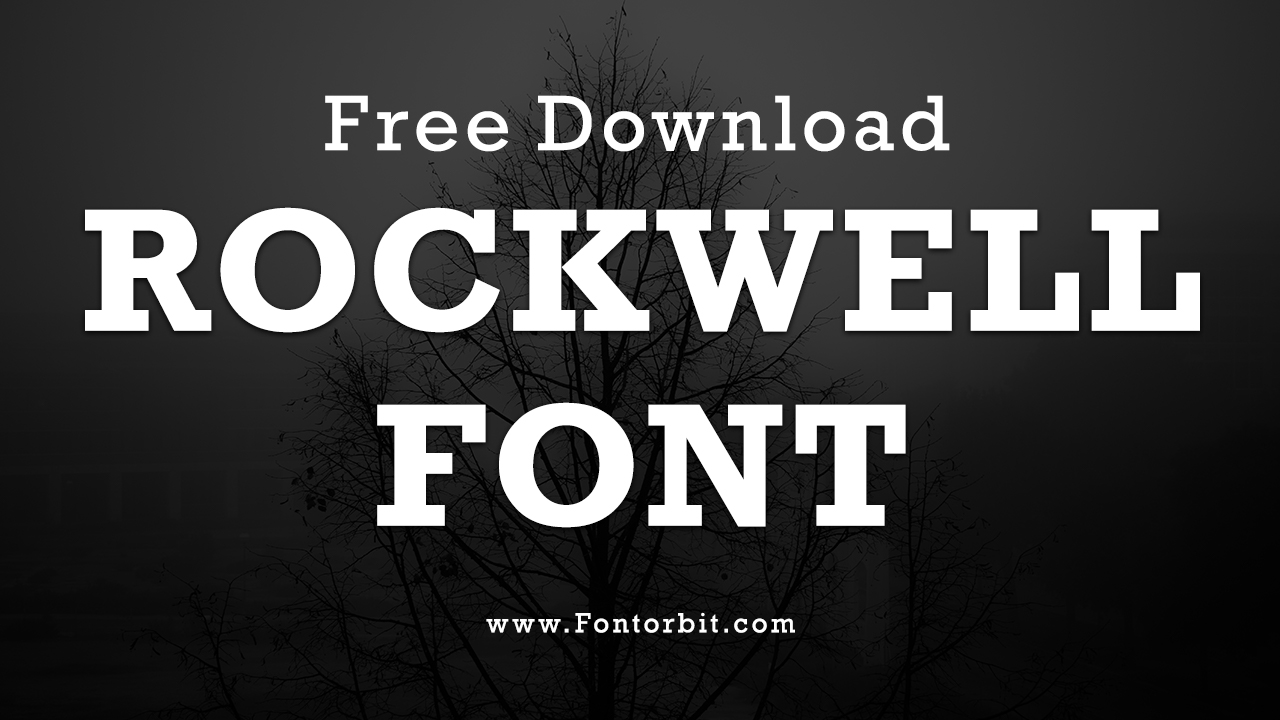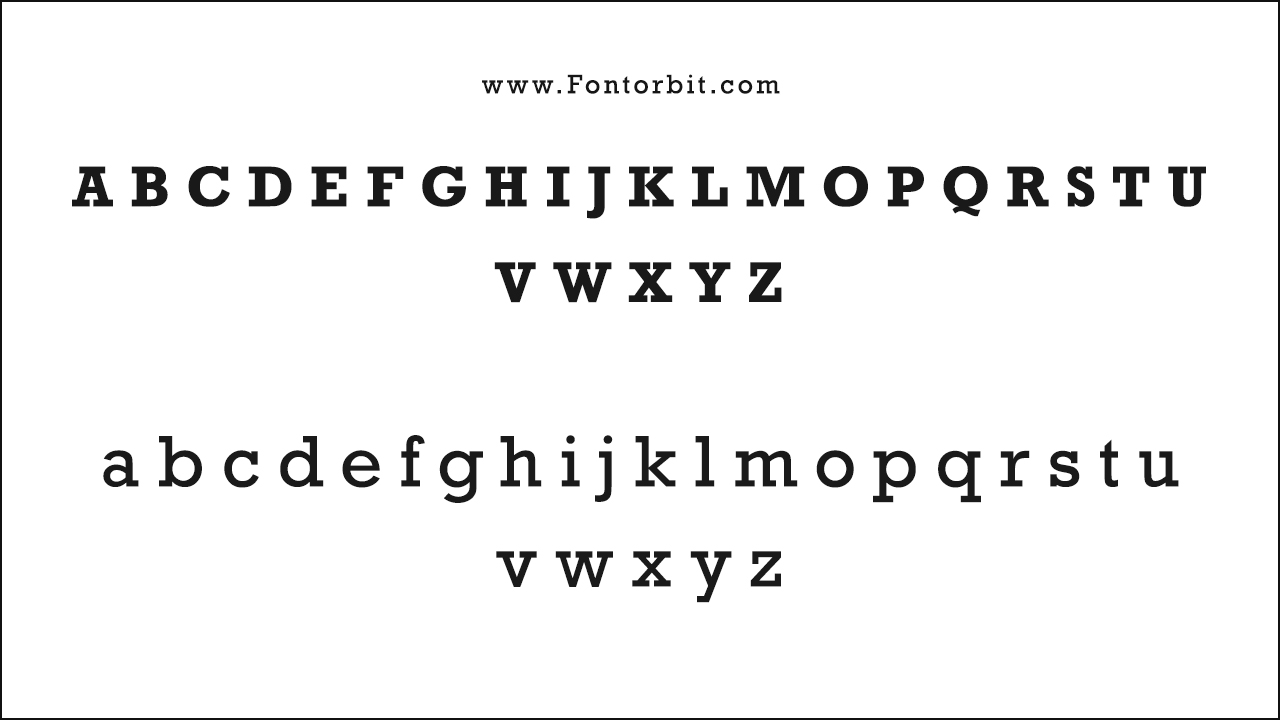
Rockwell font is a renowned slab-serif font designed by Frank Hinman Pierpont and released by the Monotype Corporation in 1934. The font family includes a variety of styles and weights, making it versatile for both print and digital applications.
The font’s geometric slab serifs and monoline structure make it a standout choice for headlines, branding, and display uses. The Rockwell family is available for free download for personal use and is also accessible through Google Fonts in TTF format.
Rockwell’s design reflects the geometric slab-serif trend of the 1930s, inspired by earlier types like Memphis and Beton. Its clean, monoweight strokes cater to both modern and classic design needs. This font is ideal for:
- Branding and logos
- Headlines and display purposes
- Editorial design
- Printing and digital content
- Public transportation signage
- Video game graphics and animated logos
Rockwell Font Found In Use
Rockwell has been utilized by:
- Guinness World Records
- Expo 86 informational signage
- Docklands Light Railway
- Arby’s advertising
Rockwell stands out with its bold slab-serifs and geometric precision, making it a powerful choice for various design applications. Its robust appearance and legibility make it suitable for both display and text use, and it pairs well with other typefaces for enhanced visual impact.
1.What Are The Contemporary Uses Of Rockwell Font In Graphic Design?
Rockwell is used extensively in branding, headlines, and display text due to its bold presence and legibility. It’s popular in both print and digital environments.
2.What Are The Best Colour Combinations To Use With Rockwell Font?
Rockwell works well with contrasting colours to highlight its strong, geometric forms. Consider pairing it with vibrant colours for headlines or using it in a monochrome palette for a classic look.
3.What Are The Best Practices For Using Rockwell Font In Web Design?
Ensure adequate spacing to maintain readability, avoid setting text too tight, and pair Rockwell with complementary sans-serifs or serif fonts to balance visual appeal.
4.What Makes Rockwell Font Unique?
Rockwell’s distinctive slab serifs, monoline strokes, and geometric design set it apart. Its versatility across various weights and styles contributes to its enduring popularity.
5.Is Rockwell Easy To Read?
Yes, Rockwell is designed for high legibility with its large x-height, simple shapes, and open counters, making it effective for both display and text applications.